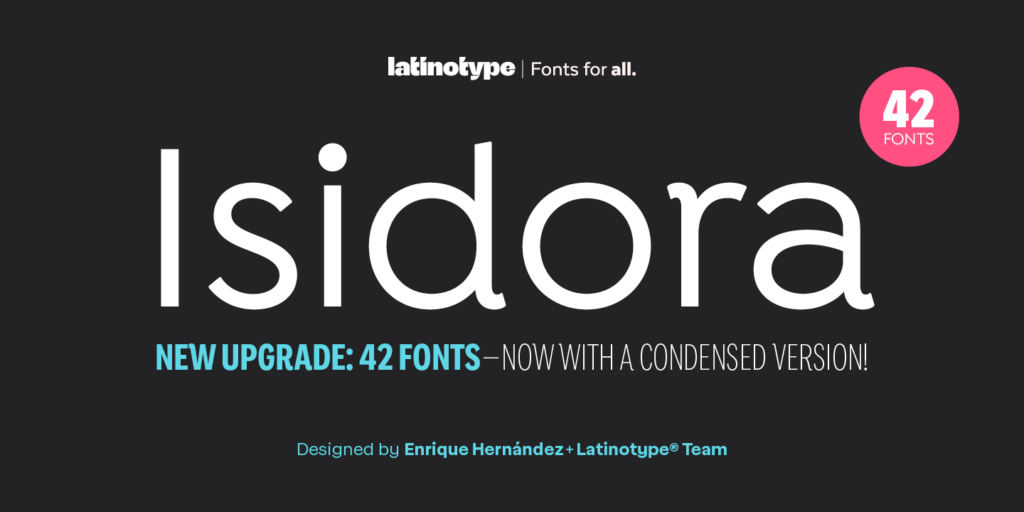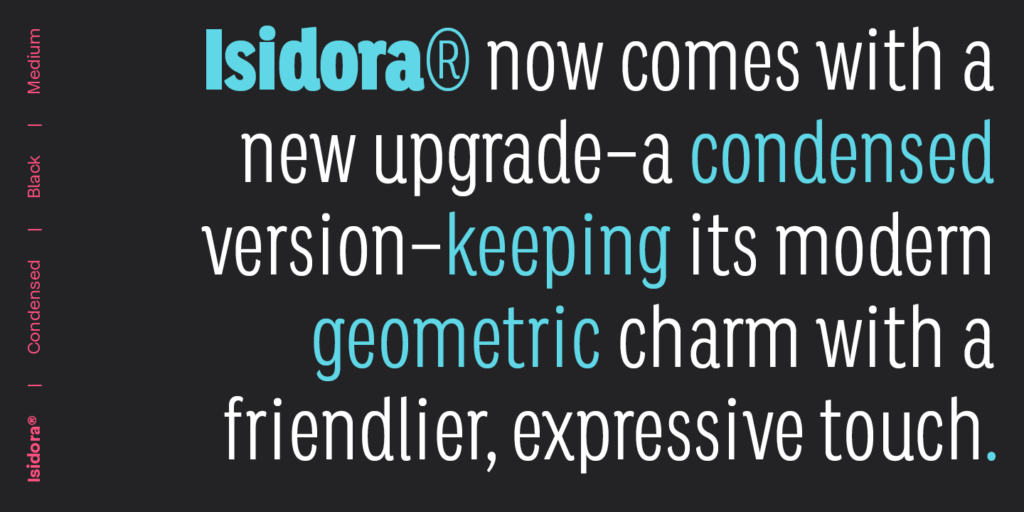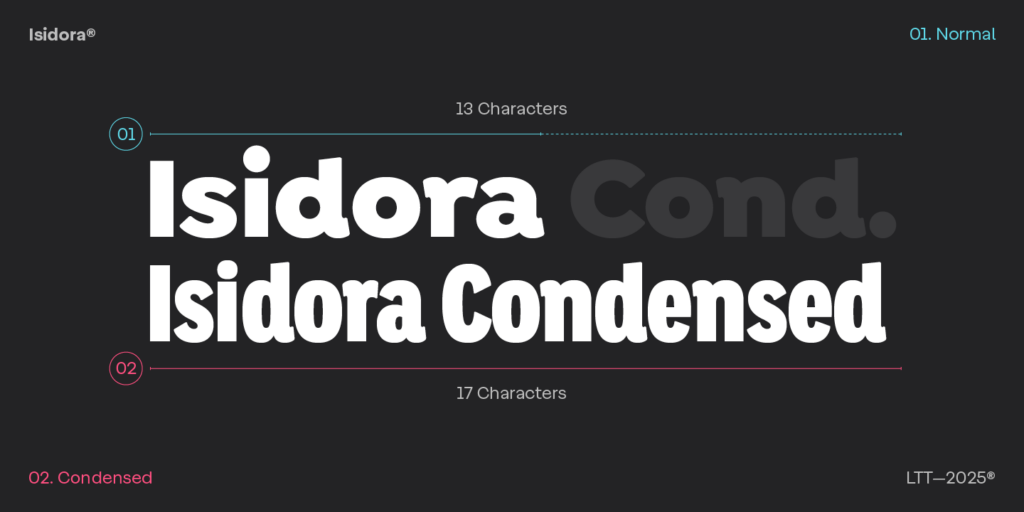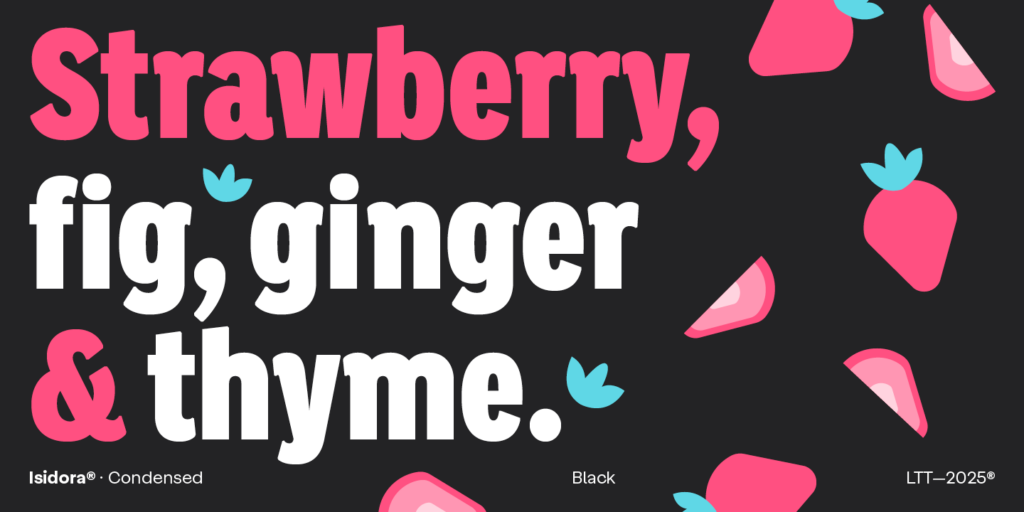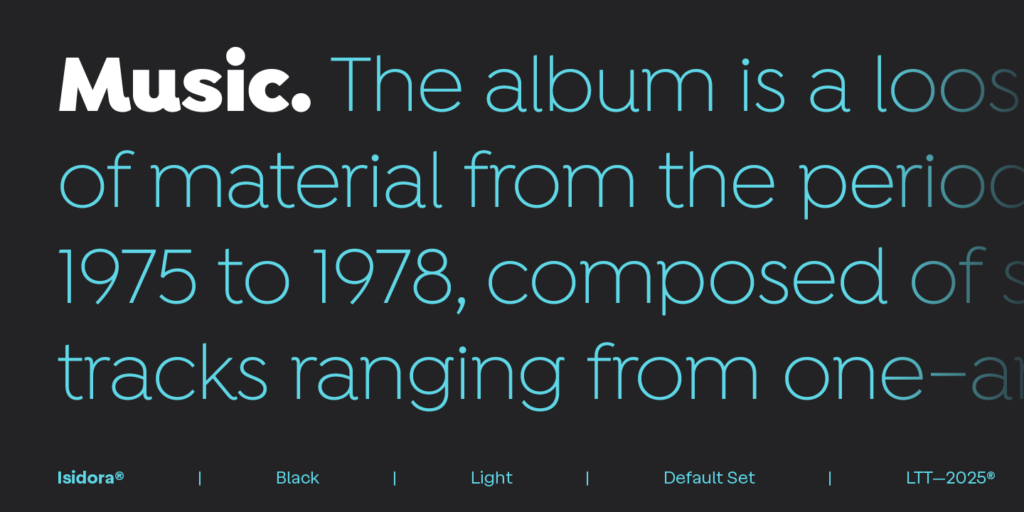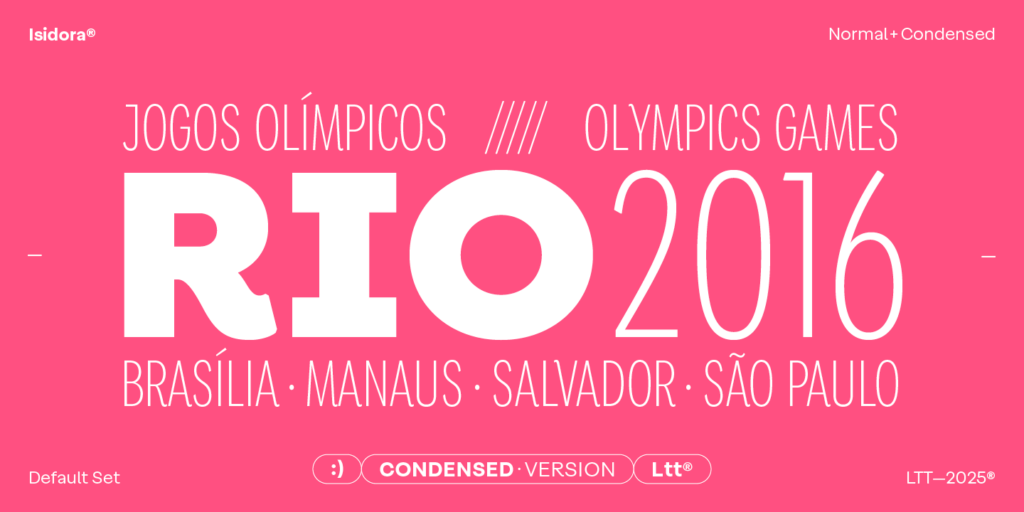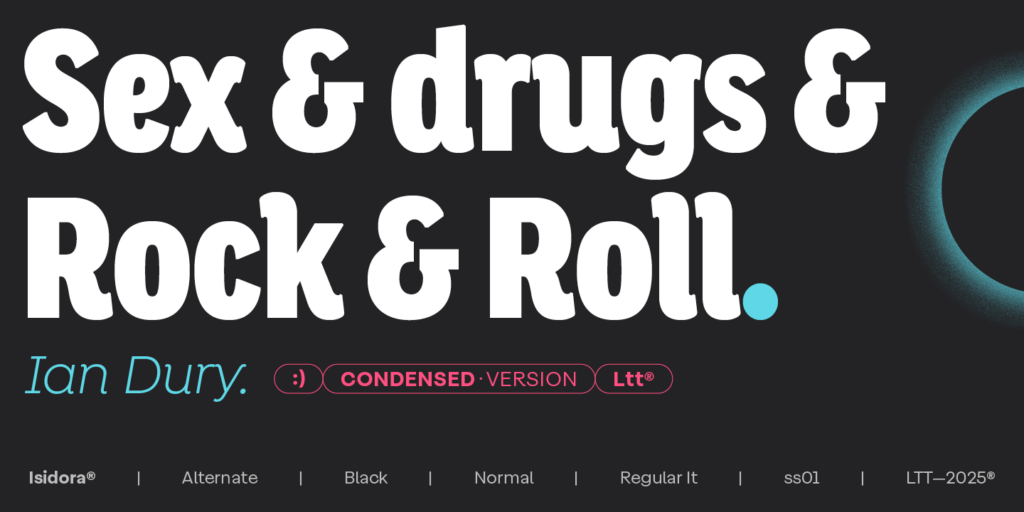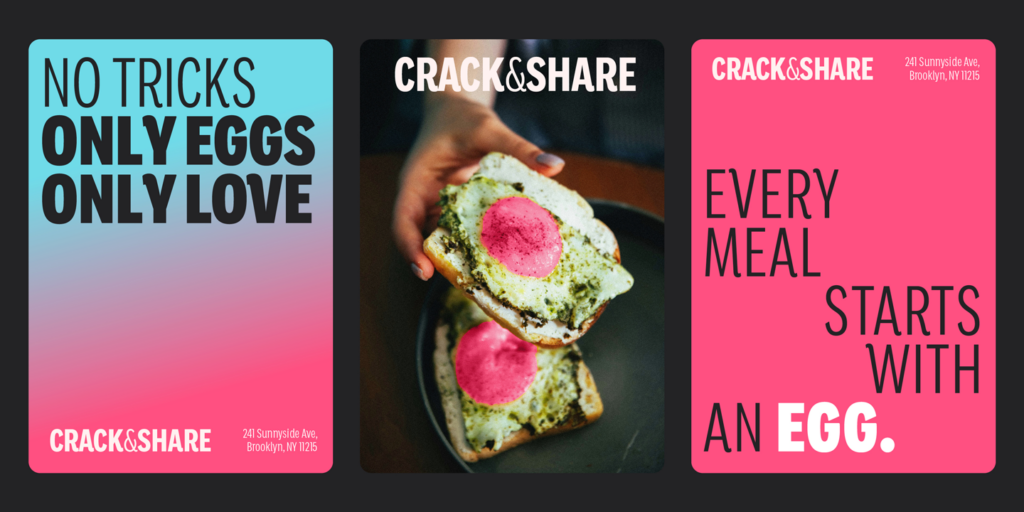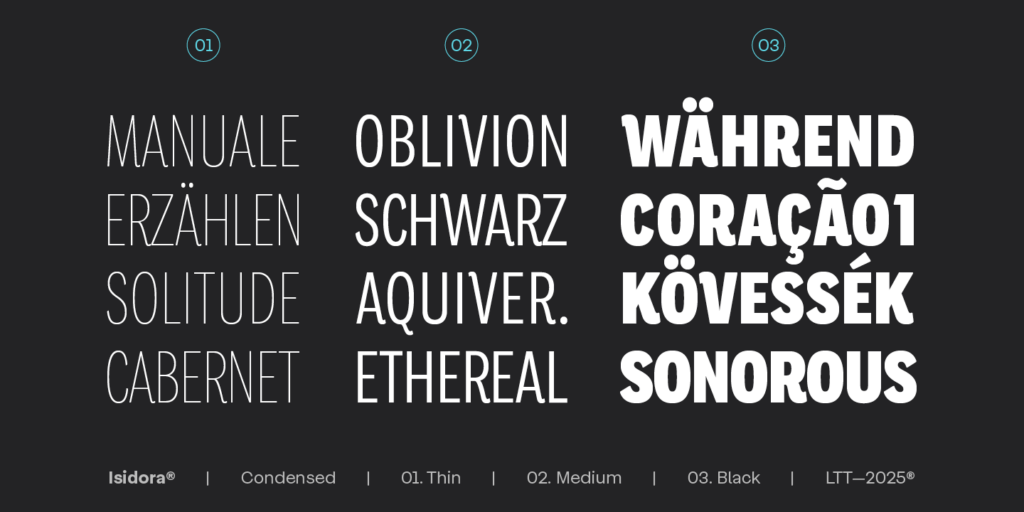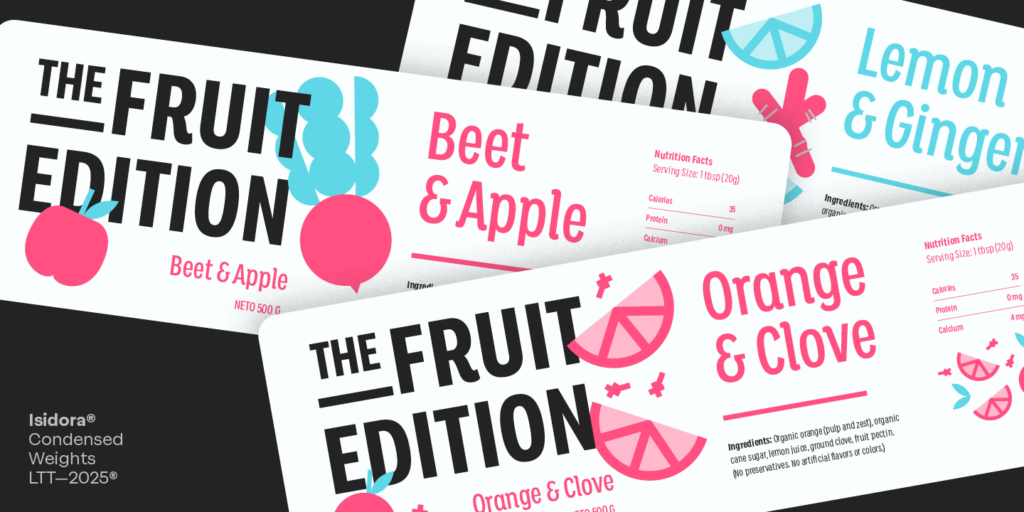
Isidora
Designed by Enrique Hernández V., Isidora is a modern geometric typeface inspired by early 20th-century classic typefaces, with a contemporary and functional twist.
Despite its strong, rational structure, it maintains a friendly and expressive look thanks to its rounded terminals and softer diagonal cuts.
The family consists of two subfamilies with 7 weights each — Regular (more classic) and Alternate (more contemporary and display-oriented) — both with matching italics, for a total of 28 fonts.
The collection expands with Isidora Condensed, designed to fit more text into less space while preserving the visual strength that has made the family so popular.
With optimized proportions, refined curves, and updated details, this version enhances Isidora’s contemporary character and makes it even more versatile for headlines, branding, editorial projects, and identity systems.
Compact, clear, and strong, it combines efficiency and style at any scale.